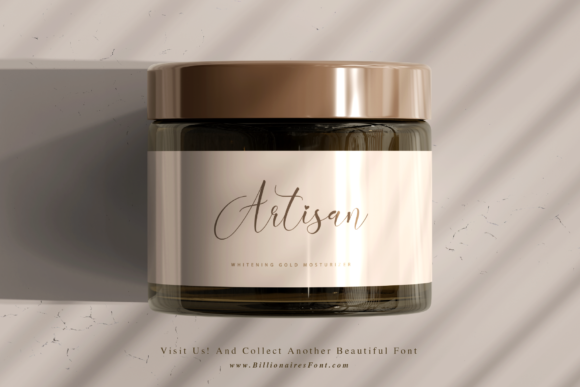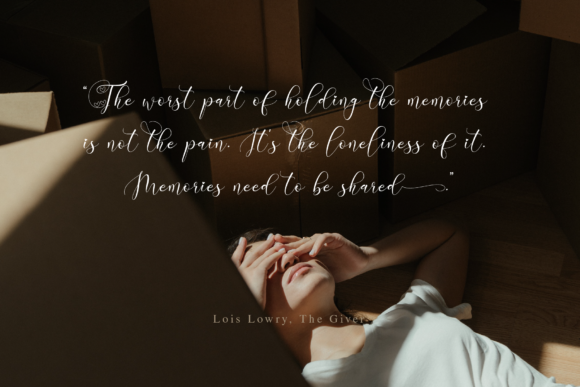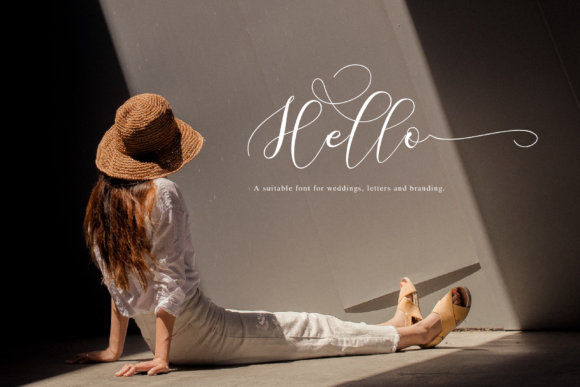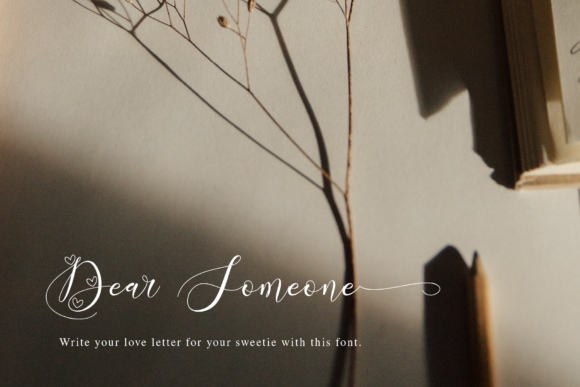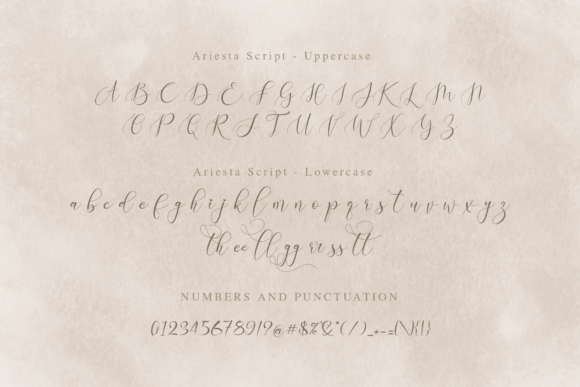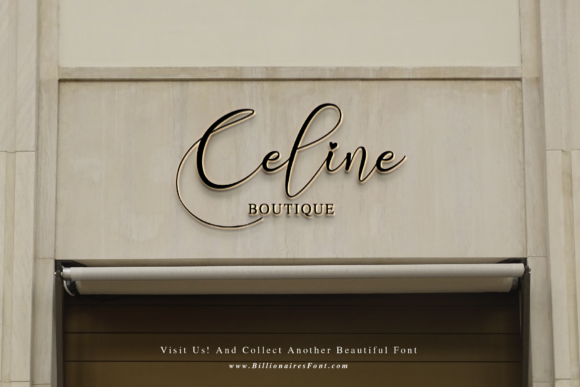
Ariesta Script Font: Elevate Your Design with Luxury and Elegance
Are you looking for a font that can add a touch of luxury and sophistication to your design projects? Look no further than the Ariesta Script Font. This beautiful and light handwritten font is designed to make a stunning impact on any design project, and its unique feel is sure to set your work apart from the rest.
What Makes Ariesta Script Font Special?
Ariesta Script Font is a carefully crafted font that is designed to provide a luxurious and elegant feel to any design project. Its unique and beautiful handwritten style makes it perfect for use in a variety of design applications, from branding and advertising to packaging and digital media.
One of the standout features of Ariesta Script Font is its PUA (Private Use Area) encoding. This means that you can easily access all of the amazing glyphs and ligatures that make this font so special. With PUA encoding, you can unlock the full potential of the font and take your designs to the next level.
Key Features of Ariesta Script Font
- Beautiful and light handwritten style: Ariesta Script Font features a unique and elegant handwritten style that is perfect for adding a touch of luxury to your designs.
- PUA encoded: With PUA encoding, you can easily access all of the amazing glyphs and ligatures that make this font so special.
- Unique feel: Ariesta Script Font has a distinctive feel that sets it apart from other fonts, making it perfect for designers who want to create something truly unique.
- Stunning impact: This font is designed to make a big impact on your design projects, and its elegant style is sure to impress.
How to Use Ariesta Script Font in Your Design Projects
Ariesta Script Font is a versatile font that can be used in a variety of design applications. Here are a few ideas for how you can use this font in your design projects:
- Branding and advertising: Use Ariesta Script Font to create elegant and sophisticated branding and advertising materials, such as logos, business cards, and brochures.
- Packaging design: Add a touch of luxury to your packaging designs with Ariesta Script Font, perfect for high-end products or special edition releases.
- Digital media: Use Ariesta Script Font to create stunning digital media, such as social media graphics, website headers, and email newsletters.
Tips for Getting the Most Out of Ariesta Script Font
Here are a few tips for getting the most out of Ariesta Script Font:
- Experiment with different sizes and colors: Ariesta Script Font looks great in a variety of sizes and colors, so don’t be afraid to experiment and find the perfect combination for your design.
- Pair it with other fonts: Ariesta Script Font pairs well with a variety of other fonts, so try combining it with other fonts to create a unique and interesting look.
- Use it to add a touch of elegance: Ariesta Script Font is perfect for adding a touch of elegance and sophistication to your designs, so use it to elevate your work and make it stand out.
In conclusion, Ariesta Script Font is a beautiful and elegant font that is perfect for designers who want to add a touch of luxury and sophistication to their design projects. With its unique feel, stunning impact, and PUA encoding, this font is sure to take your designs to the next level. So why wait? Download Ariesta Script Font today and start creating stunning designs that will leave a lasting impression.